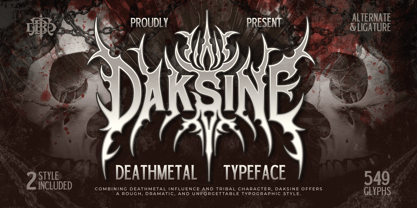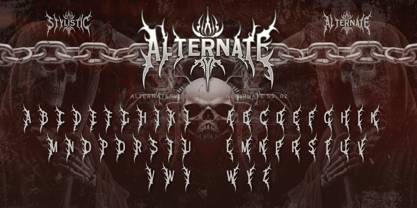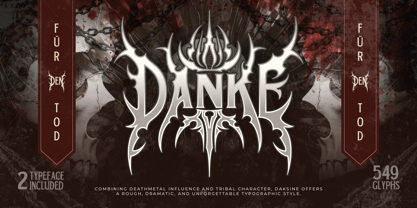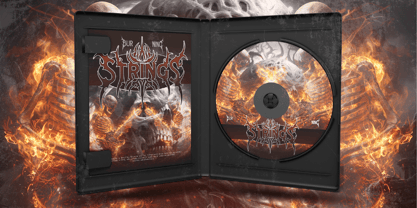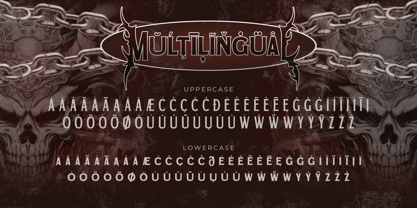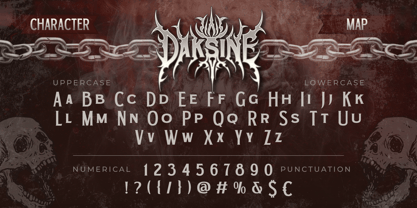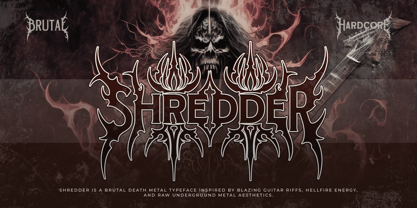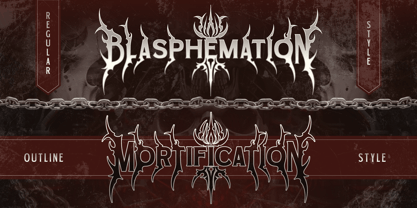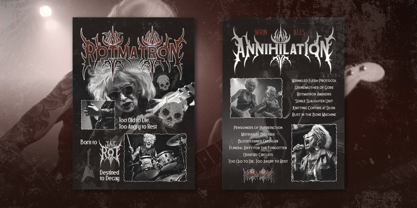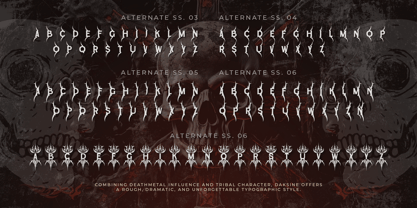
Daksine
The Daksine Font Family was designed by Eric Kurniawan and published by Burntilldead. Daksine contains 2 styles and family package options. More about this family
Daksine is a bold and aggressive death metal typeface inspired by extreme music, dark art, and gothic aesthetics. The sharp spikes, dramatic curves, and intense details create a powerful and unforgettable look. This font is perfect for designs that need a dark, brutal, and high-impact style. Every letter is carefully crafted to give that raw underground metal feeling, but still readable and usable for modern design projects. Daksine comes with 2 styles: Regular and Outline With 549 glyphs included, this font supports uppercase, lowercase, numbers, punctuation, alternates, and ligatures — giving you more flexibility for creative typography. Perfect for: Band logos, Album covers, Metal merchandise, Posters & flyers, Horror or gothic branding, Streetwear designs, Dark-themed packaging, Tattoo-inspired artwork Features: A - Z set (Uppercase & Lowercase), Number, Punctuation, Alternates, Multilingual